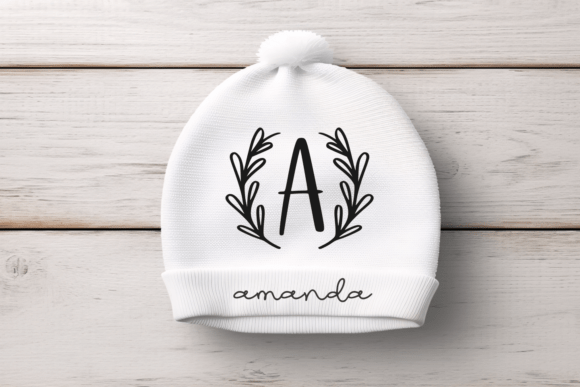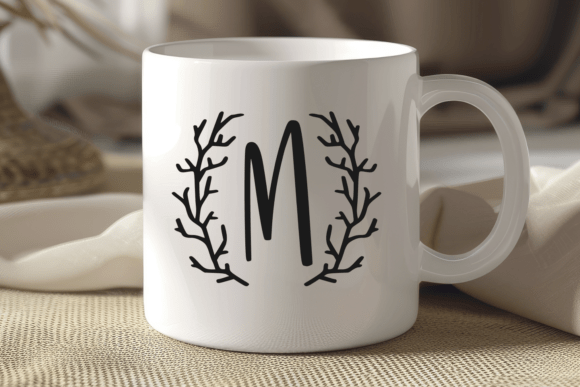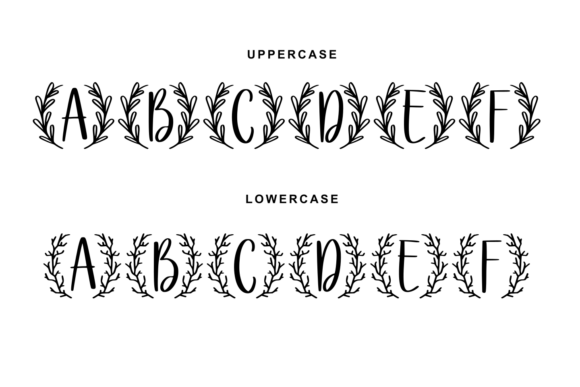
Introducing Dauny Monogram Font: Add a Personal Touch to Your Designs
Are you looking for a font that can add a sweet and personal signature to your designs? Look no further than Dauny Monogram Font. This cute handwritten monogram font is designed to bring a warm and charming feel to your projects, making it perfect for designers and crafters who want to create memorable accents.
The Characteristics of Dauny Monogram Font
Dauny Monogram Font is characterized by its soft curves and friendly proportions. Each letter is carefully drawn to create a compact yet playful look that is ideal for initials and short names. The monogram style of the font ensures that it remains elegant and refined, while still carrying a handwritten character that is both joyful and gentle.
Dauny Monogram Font is versatile and can be used in a variety of design projects. Whether you’re creating logos, labels, stationery, wedding details, social media marks, or personal branding materials, this font is sure to bring a lovely touch to your work. Its compact and elegant design makes it perfect for use in small spaces, such as on business cards or social media avatars, while its playful character ensures that it will stand out in larger designs, such as on posters or flyers.
Why Choose Dauny Monogram Font?
So, why choose Dauny Monogram Font over other monogram fonts? Here are just a few reasons why designers and crafters love this font:
- Handmade feel: Dauny Monogram Font has a handmade feel that is perfect for designers and crafters who want to add a personal touch to their work.
- Joyful and gentle: The font’s playful character and soft curves create a joyful and gentle look that is sure to delight.
- Compact and elegant: The monogram style of the font ensures that it remains compact and elegant, making it perfect for use in a variety of design projects.
How to Use Dauny Monogram Font in Your Designs
- Use it for initials: Dauny Monogram Font is perfect for use in initials and short names.
- Pair it with other fonts: The font pairs well with other fonts, making it easy to create beautiful and unique designs.
- Experiment with colors: Dauny Monogram Font looks great in a variety of colors, so don’t be afraid to experiment and find the perfect color for your design.
In conclusion, Dauny Monogram Font is a beautiful and versatile font that is perfect for designers and crafters who want to add a personal touch to their work. Its soft curves, friendly proportions, and playful character make it ideal for use in a variety of design projects, from logos and labels to stationery and wedding details. With its handmade feel, joyful and gentle look, and ease of use, Dauny Monogram Font is sure to become a favorite in your design arsenal.
Key Features of Dauny Monogram Font
- Handwritten monogram font
- Soft curves and friendly proportions
- Monogram style for a compact and elegant look
- Perfect for logos, labels, stationery, wedding details, social media marks, and personal branding
- Handmade feel with a joyful and gentle character